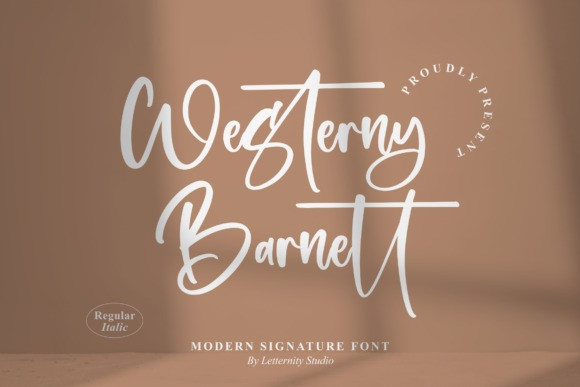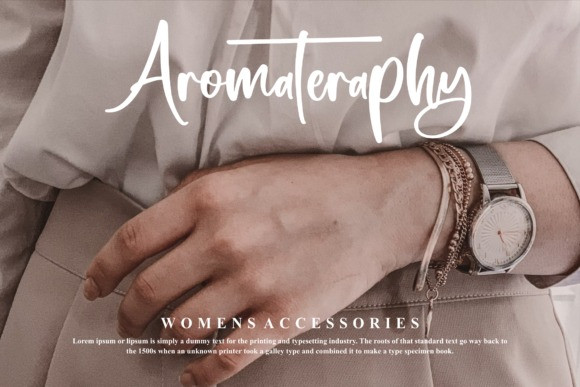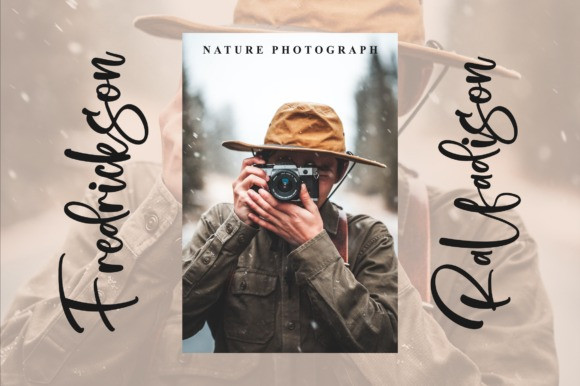
Westerny Barnett Font
Westerny Barnett feels equally charming and elegant. It looks stunning on wedding invitations, thank you cards, quotes, greeting cards, logos, business cards and every other design which needs a customized touch.